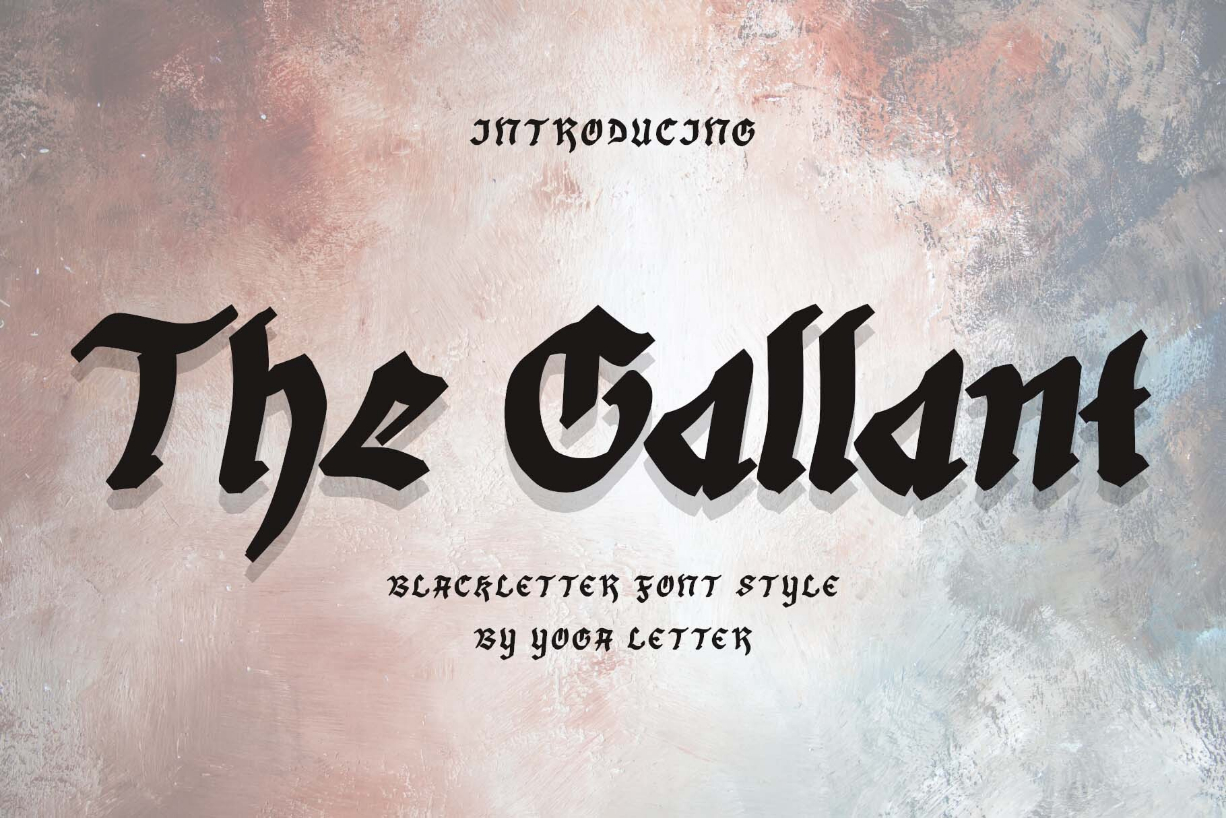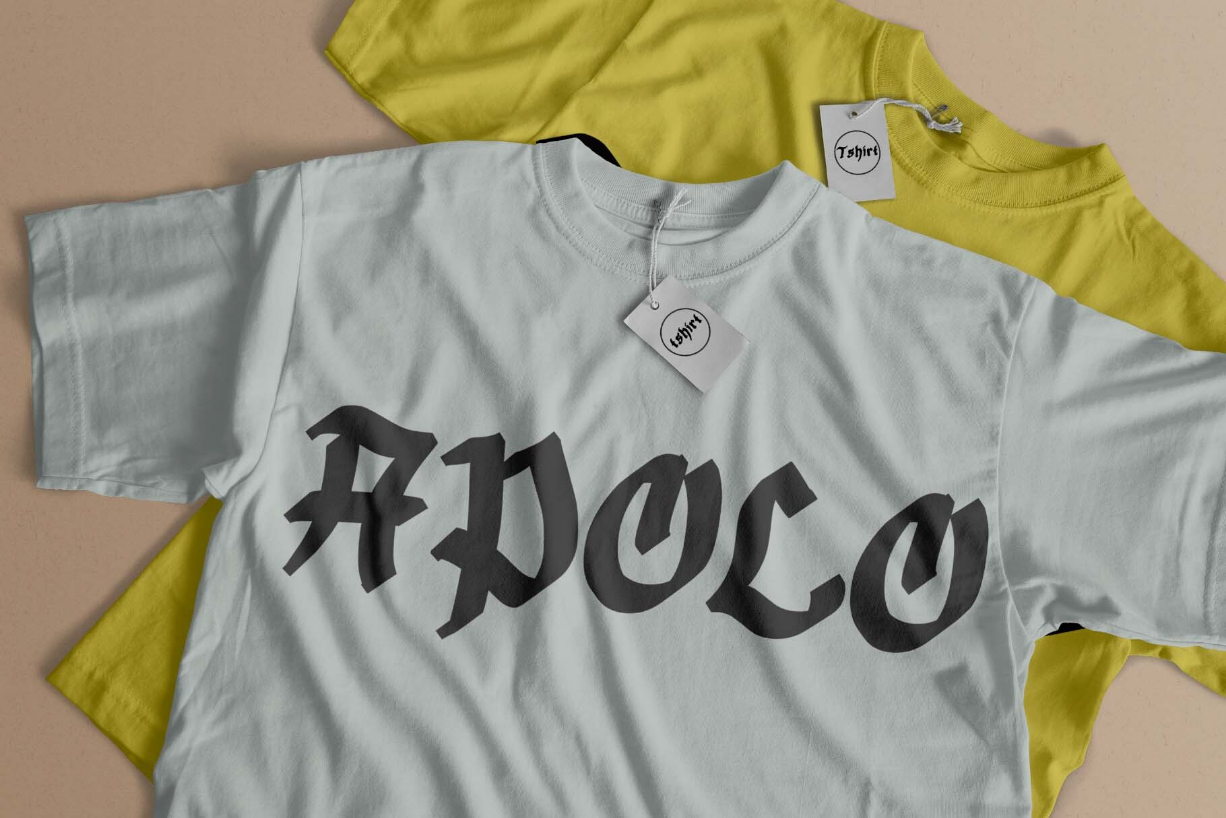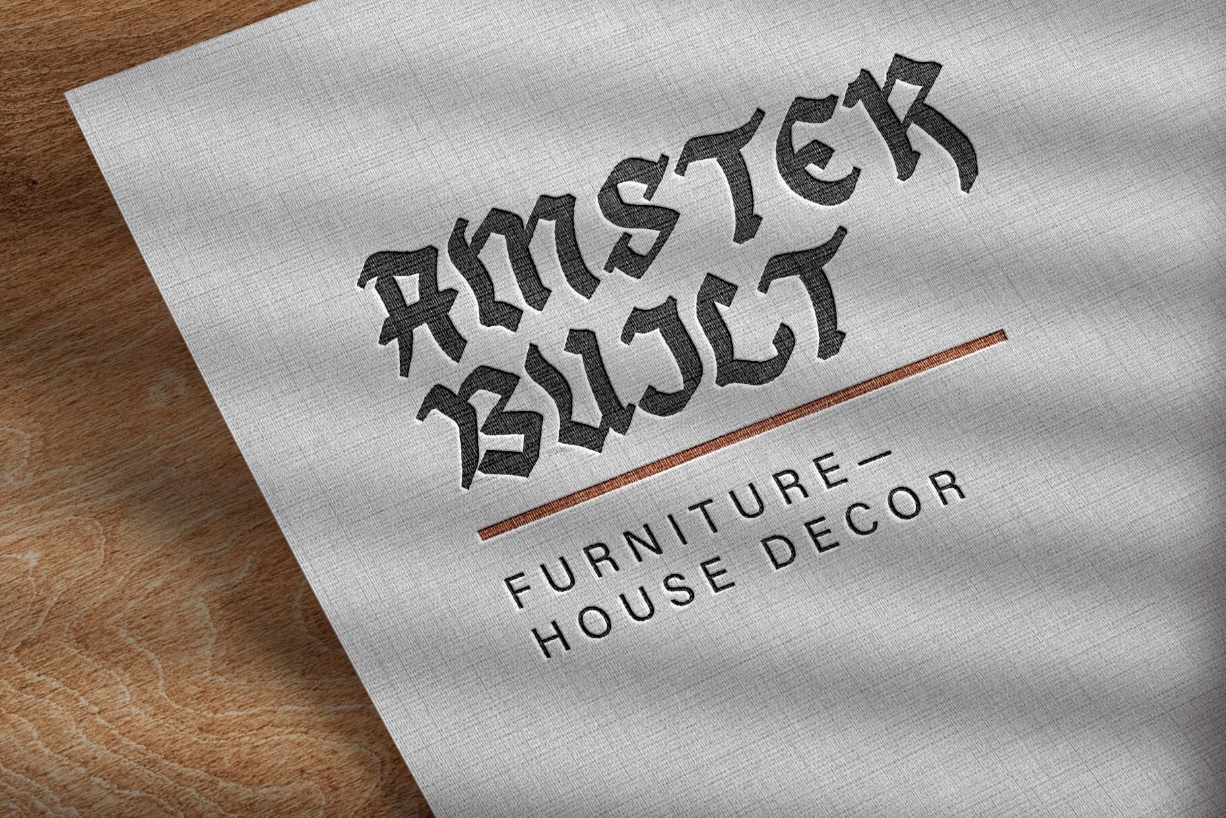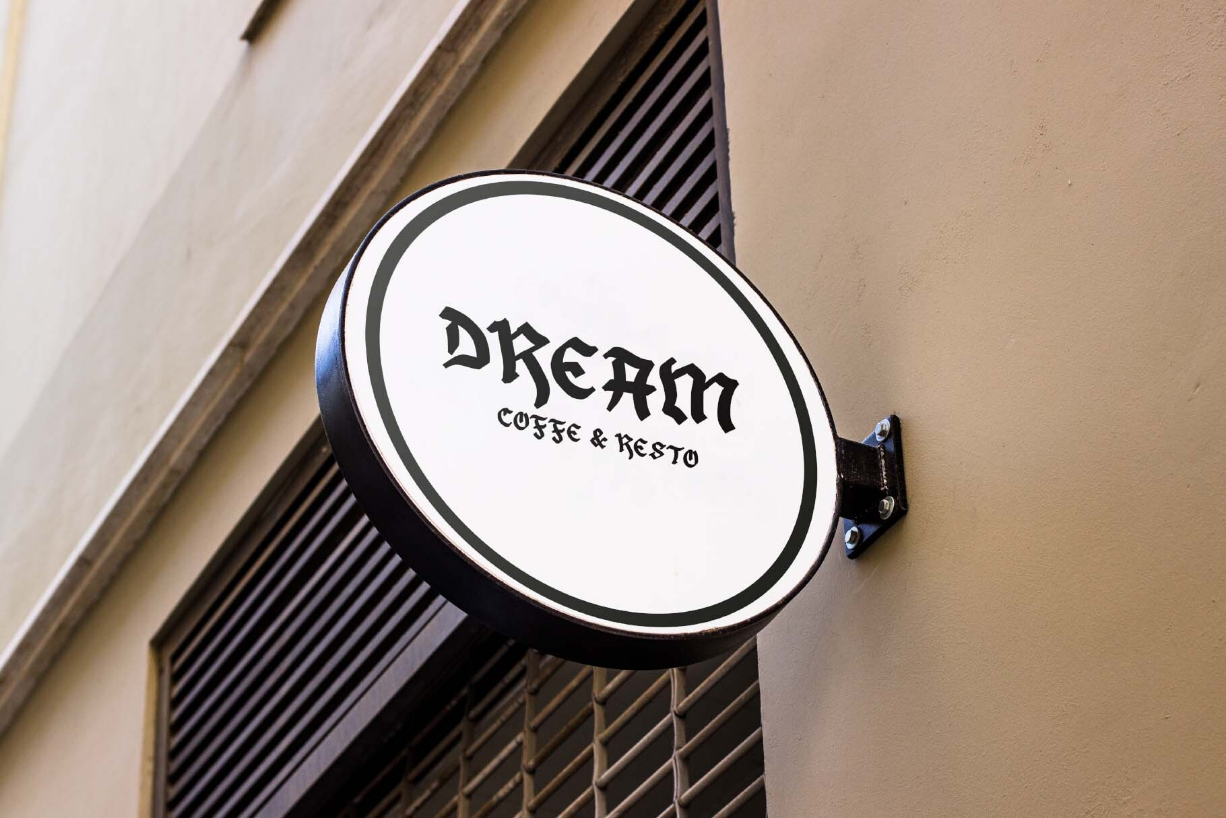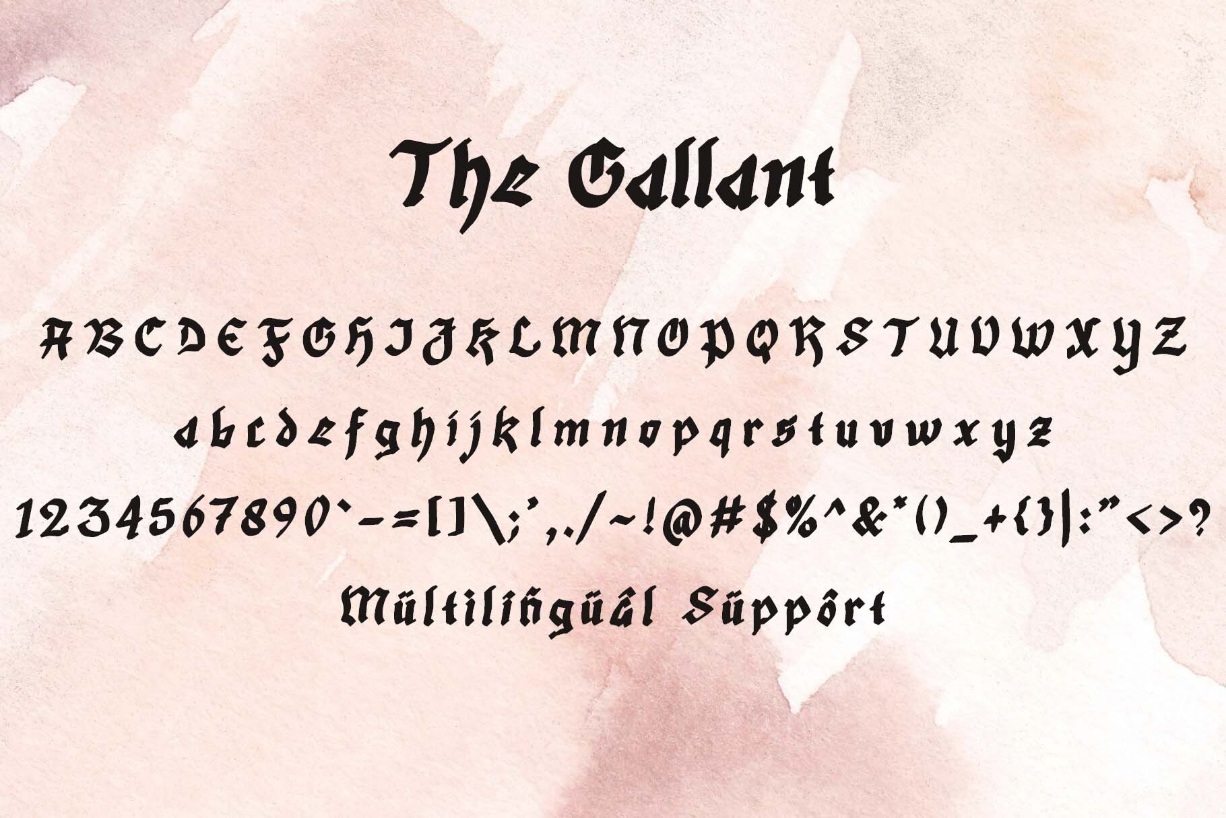
The Gallant Font
About The Gallant Font
“The Gallant” is an elegant and professional blackletter font. This font is equipped with uppercase, lowercase, numerals, punctuation, and multilingual support. Very suitable for posters, stickers, banners, branding, tattoos, invitations, Christmas, Halloween, winter, Valentine’s, logos, and others.